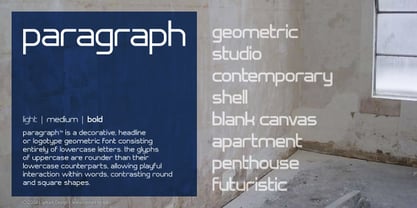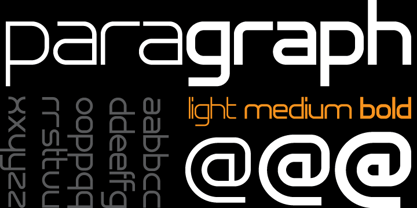
Paragraph Font
Paragraph Font is perfect for body text in websites, editorial layouts, books, social media graphics, and corporate documents. Its clean, highly readable style makes it ideal for projects that require clarity and professionalism.
What makes Paragraph Font exciting is its versatile letterforms that balance readability with a modern, polished aesthetic. The font’s subtle elegance ensures text appears comfortable and engaging for readers.
The Paragraph Font family includes Regular, Bold, Italic, and Light variations, providing designers flexibility to create cohesive and accessible typographic hierarchies.